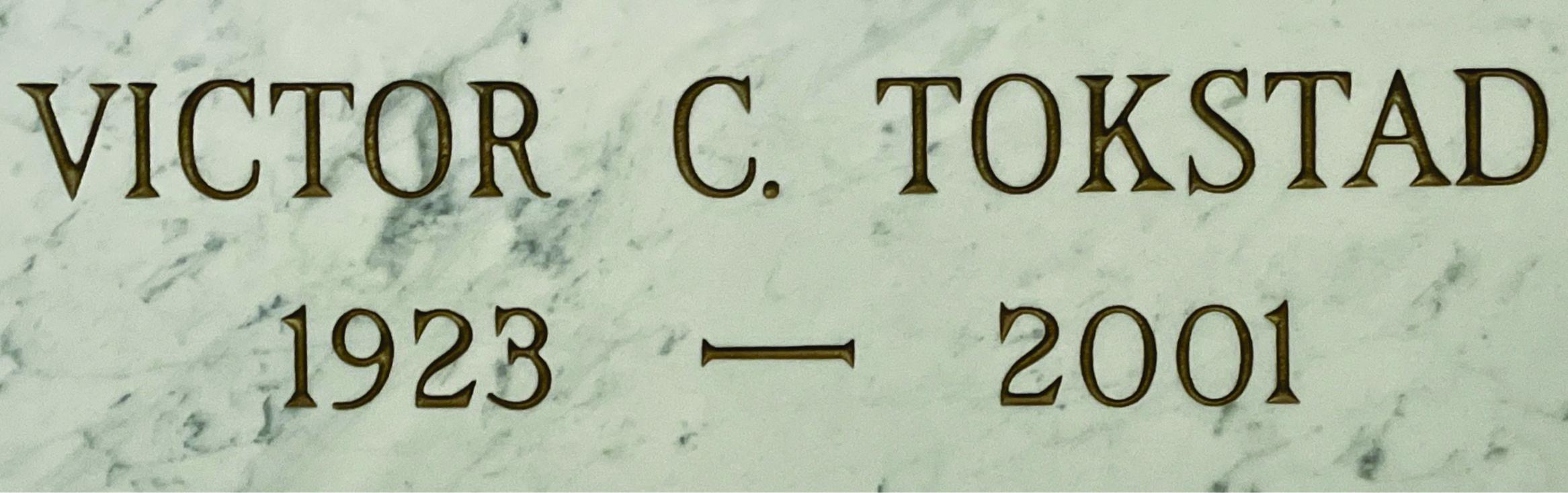
Hello, this looks like hand-cut Spacerite Modified Roman lettering. There is a version in the MLC font shop, though it may need some modification in order to match the size of the serifs on the lettering in the photo.
MLC Spacerite Modified Roman Handcut